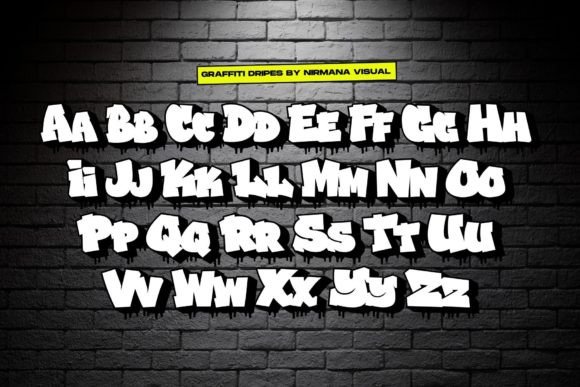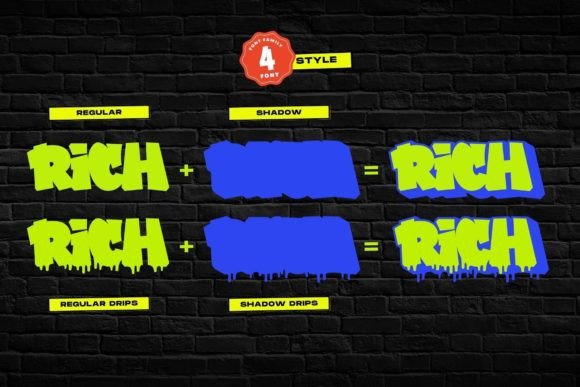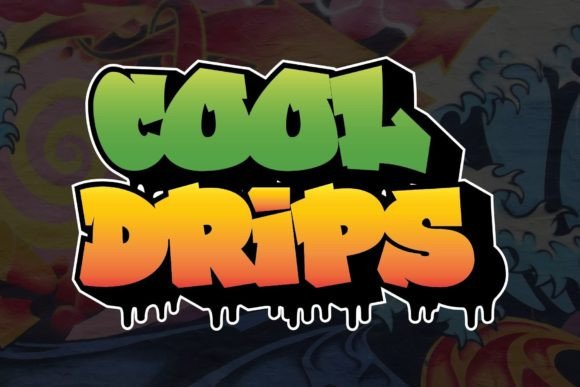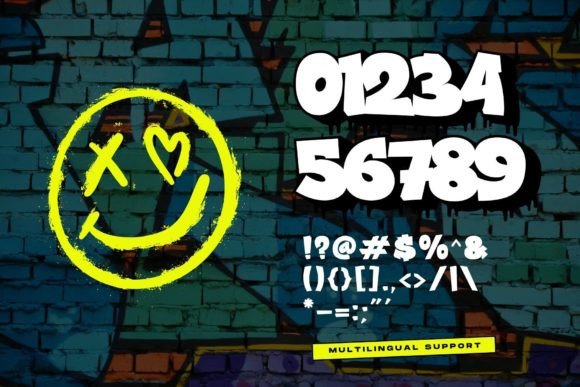
Graffiti Dripes Font
Graffiti Dripes is a bold display font that captures the raw energy and creativity of street art. Its letters are formed with a dripping paint effect, creating a unique and edgy look. This font is perfect for creating attention-grabbing titles and headlines for graffiti-inspired designs, album covers, and posters. The font’s rebellious and bold personality is sure to make a statement.